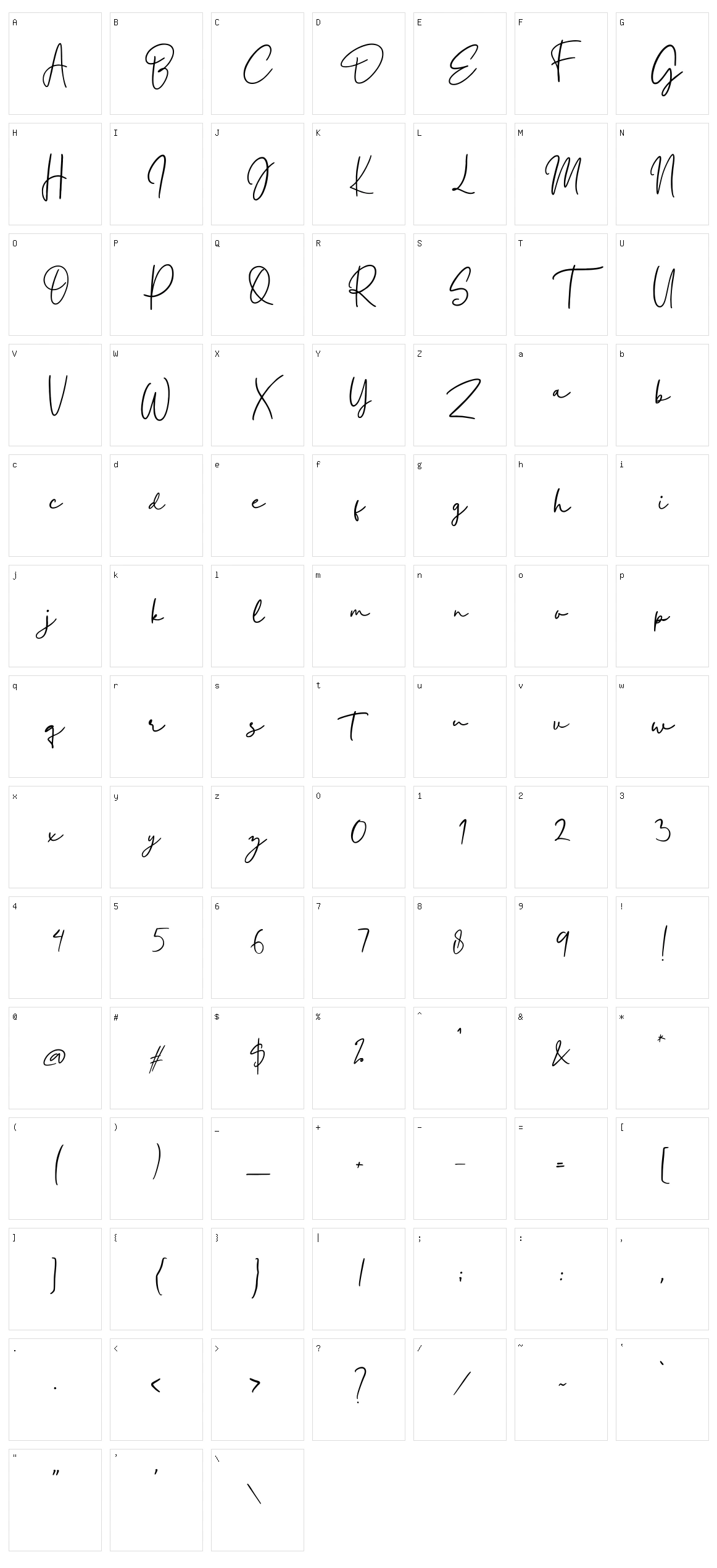
The free font Eleanor is carefully designed by Creatype Studio, showcasing a thoughtful balance of creativity and usability and falls under the Script font style. When you download the ZIP file, it contains only 25.16 KB of font files, making it lightweight and quick to download. Please review the license details below to understand permitted usage and distribution rights. If license information is not available, we recommend using this font for personal projects only or contacting the author directly for commercial usage permissions.